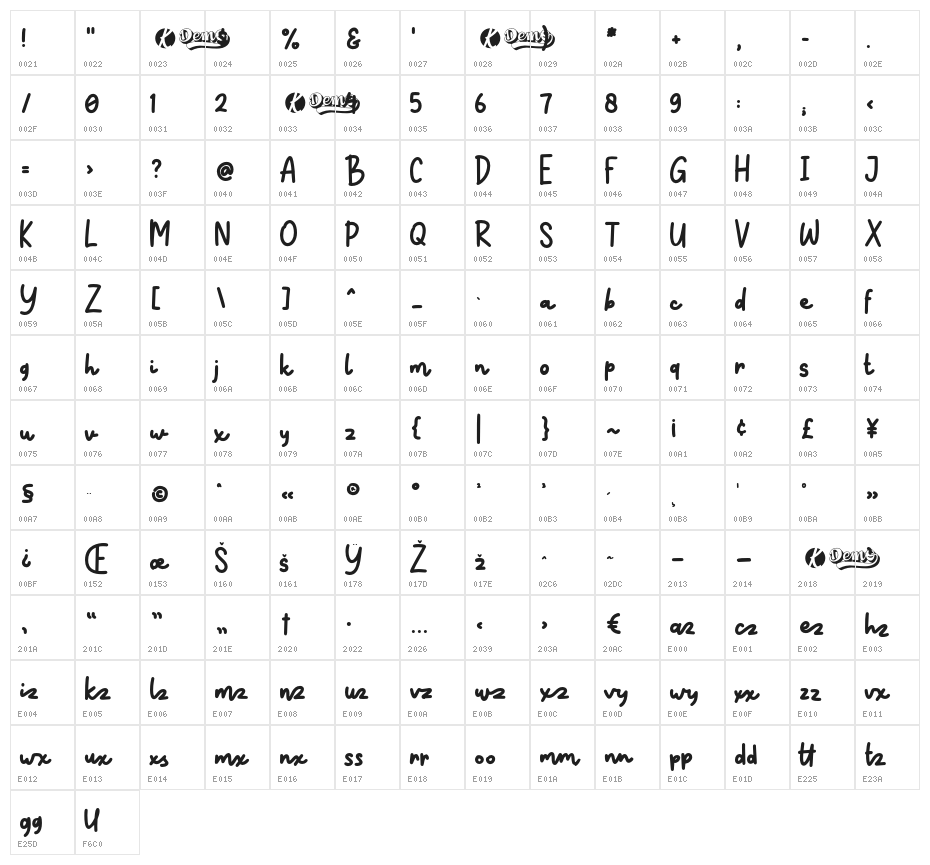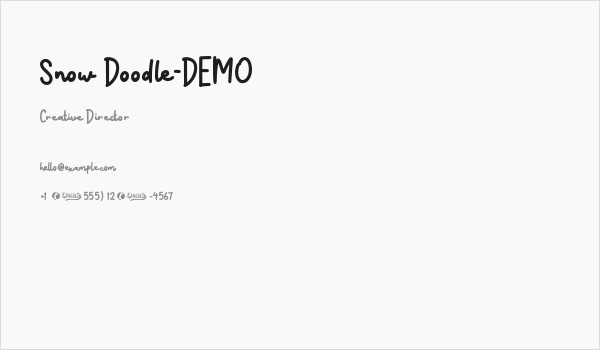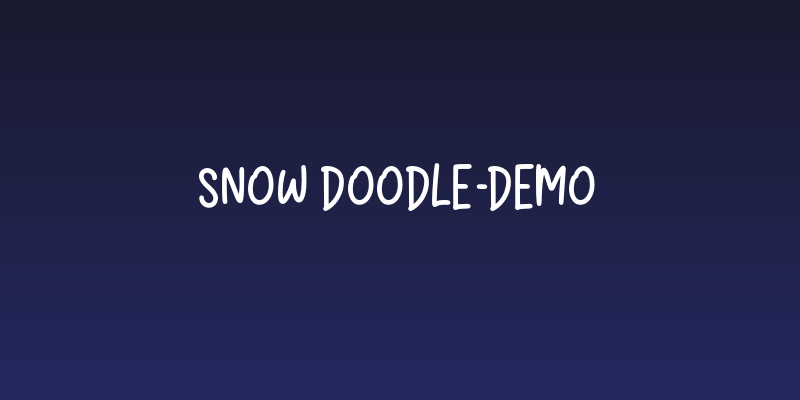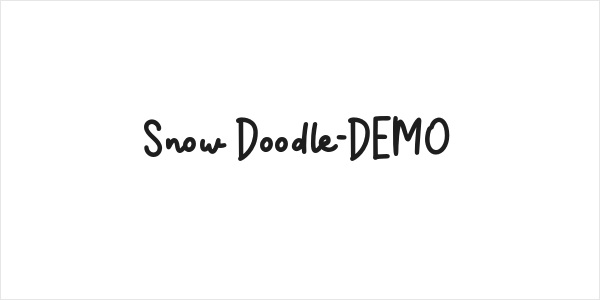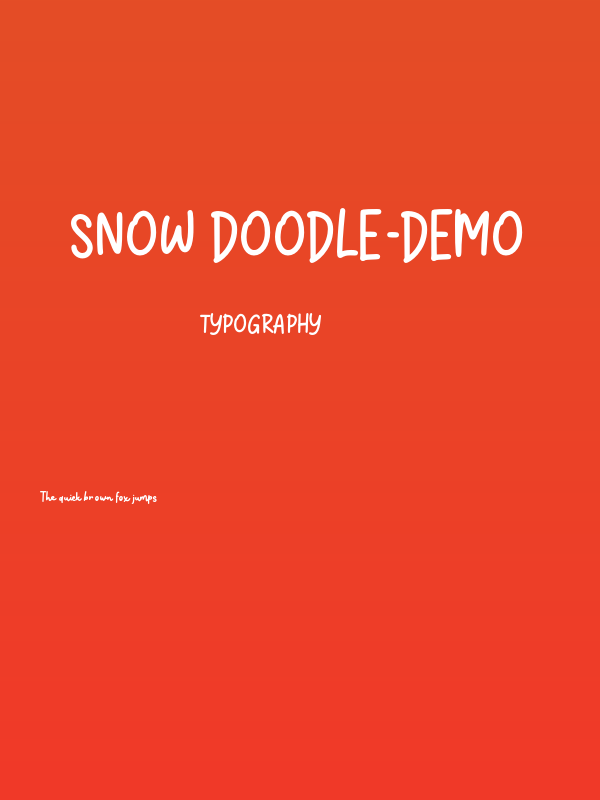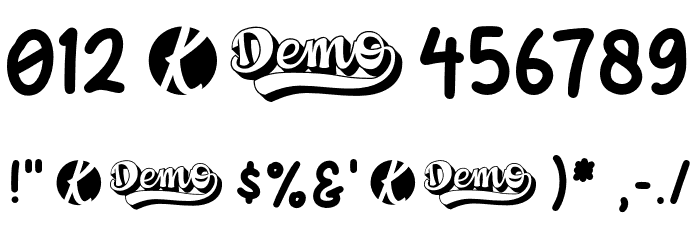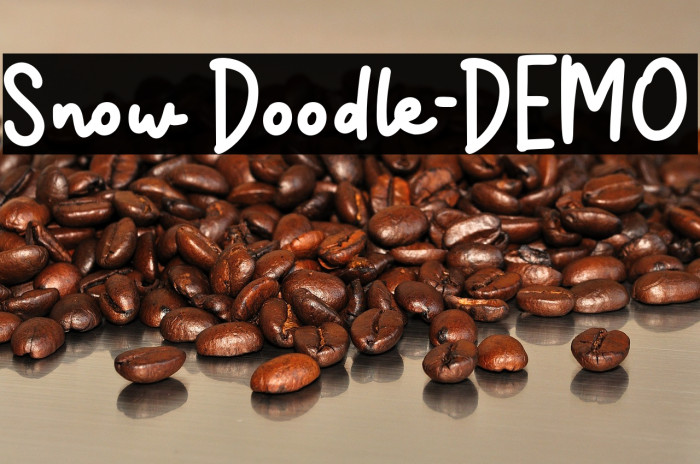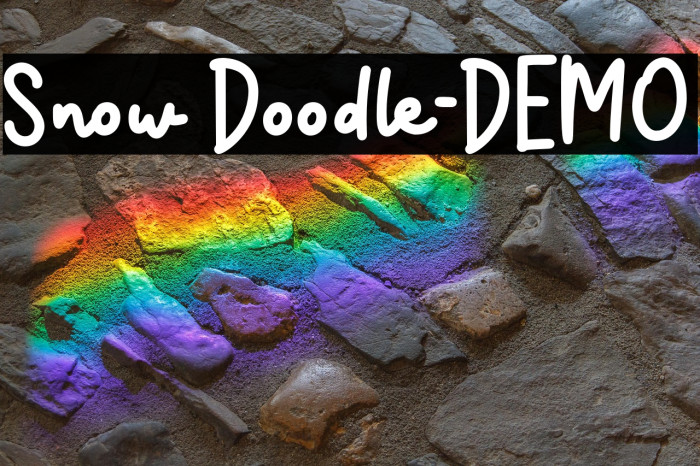
Snow Doodle-DEMO Font
Snow Doodle-DEMO Description
This playful and whimsical font features a hand-drawn style with a casual, friendly appearance. The letters are bold and rounded, giving them a soft and approachable feel. The uppercase characters are slightly taller and more elongated, while the lowercase letters maintain a consistent and harmonious flow. The numbers and special characters are designed with the same playful aesthetic, making them suitable for creative and informal projects. The font's unique style is characterized by its smooth curves and slightly uneven lines, adding to its charm and personality.